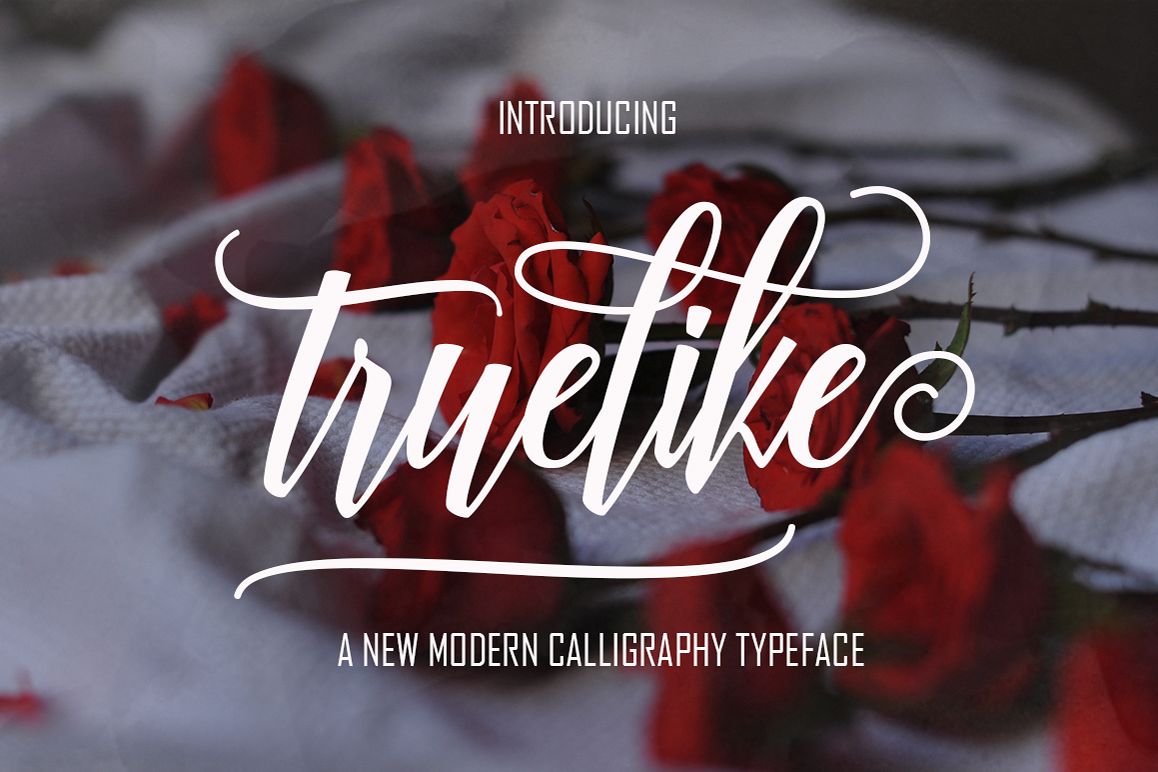
Truelike
Truelike Script
Truelike Script, connecting script, designed to convey elegance and style. Truelike Script will work perfectly for fashion, e-commerce brands, trend blogs, or any business that wants to appear classy and chic.
The font is ideal for high-end logotypes and magazine headlines, but let’s not forget greeting cards, invitations, posters, ads and the various web usages.